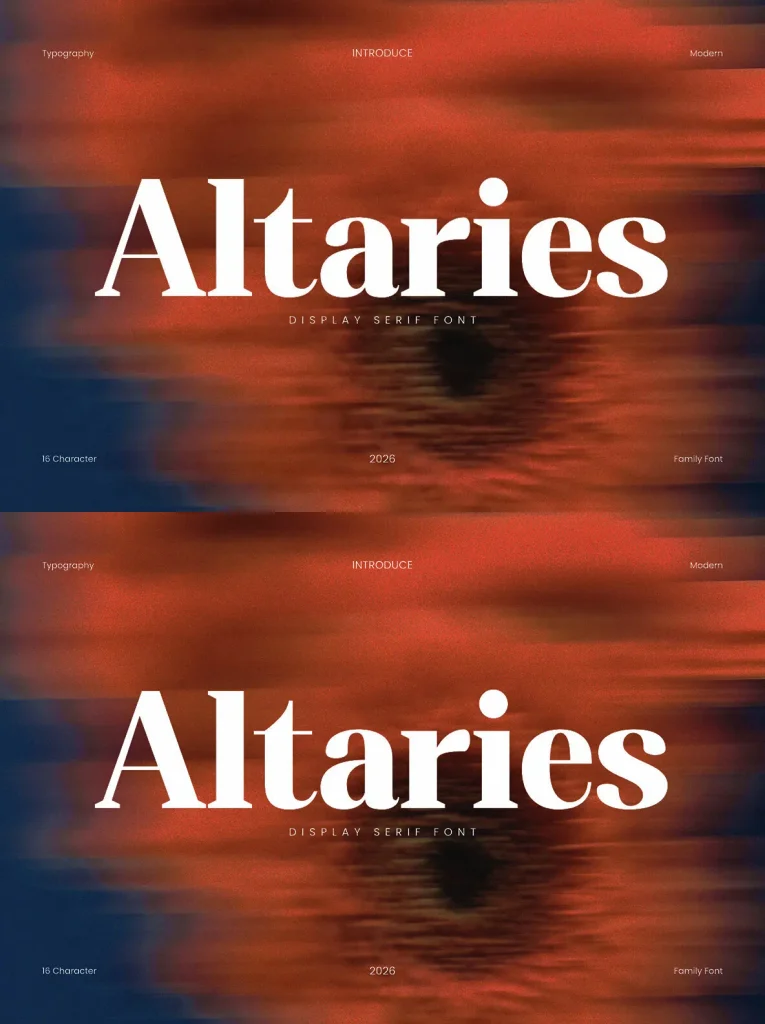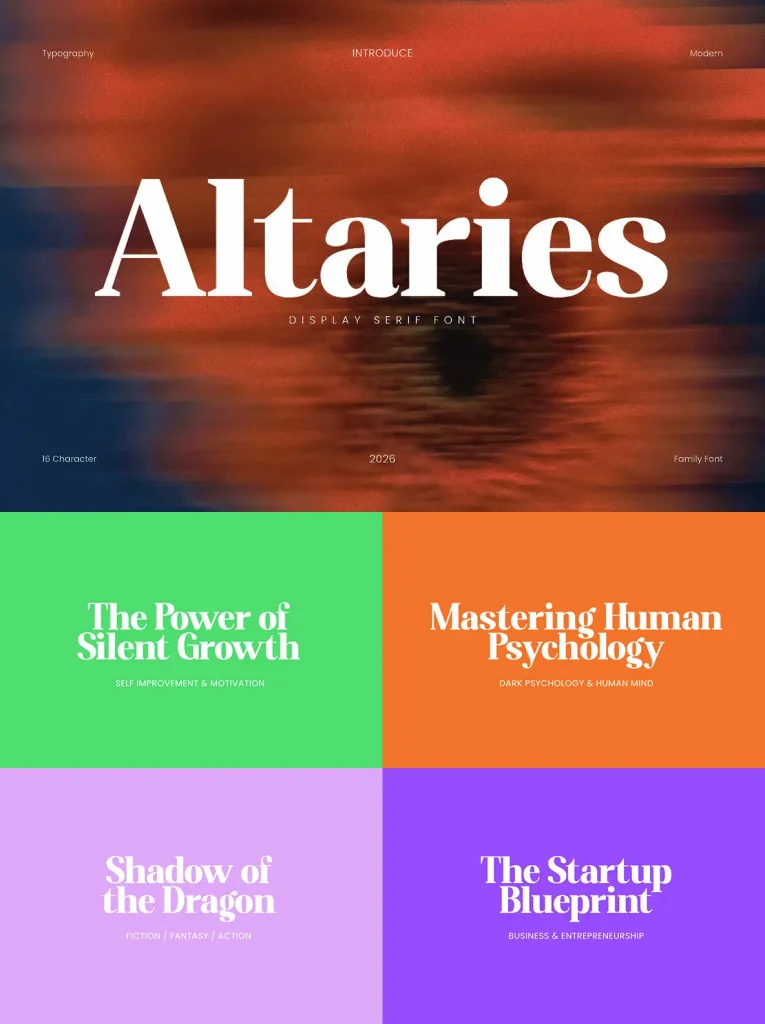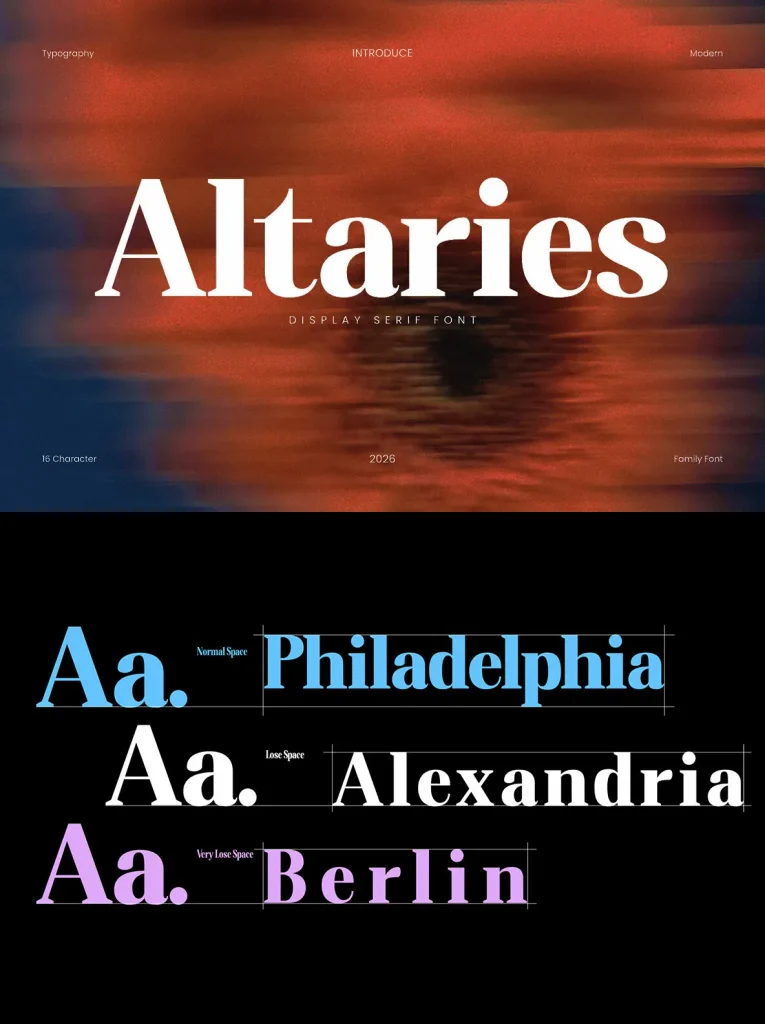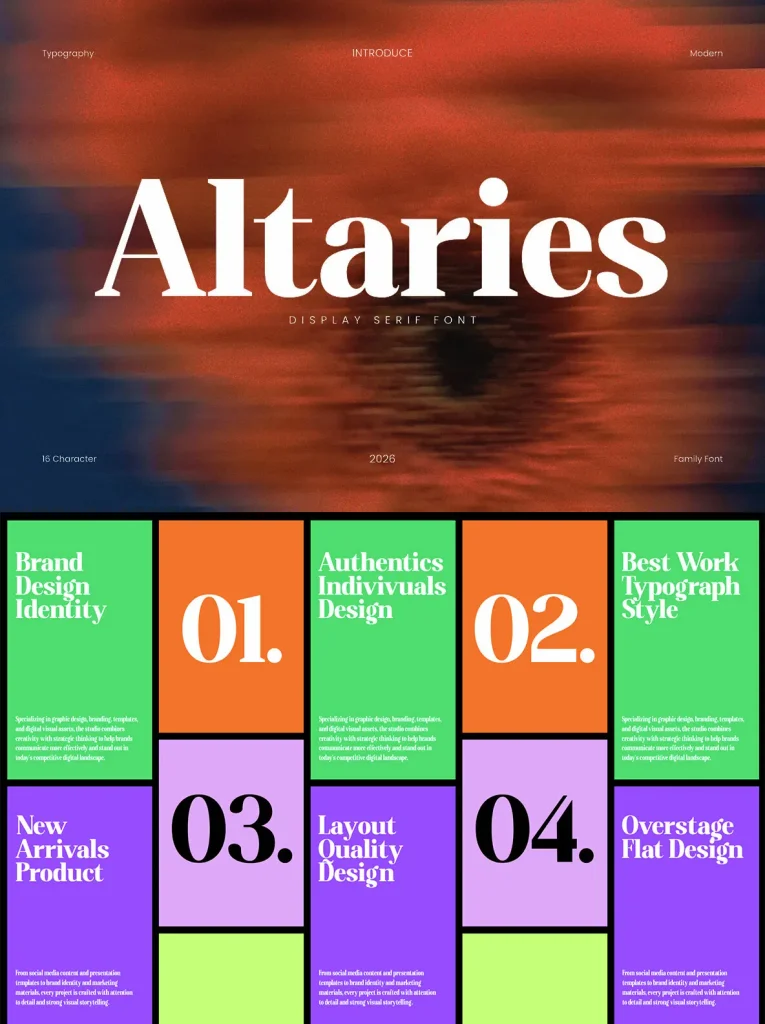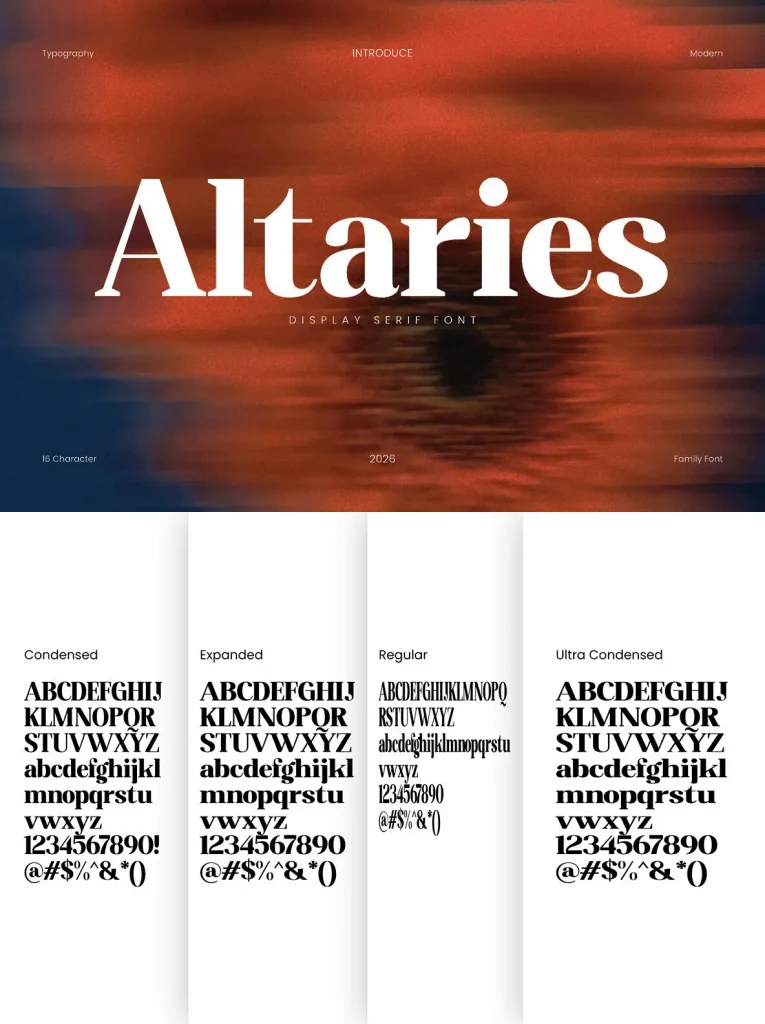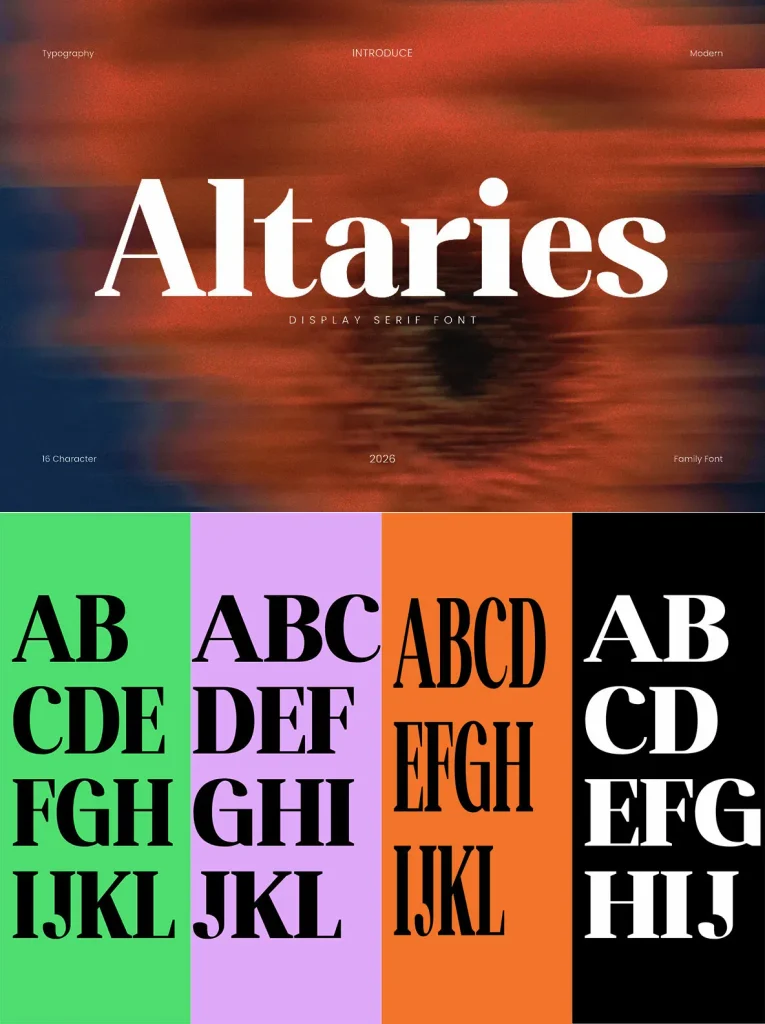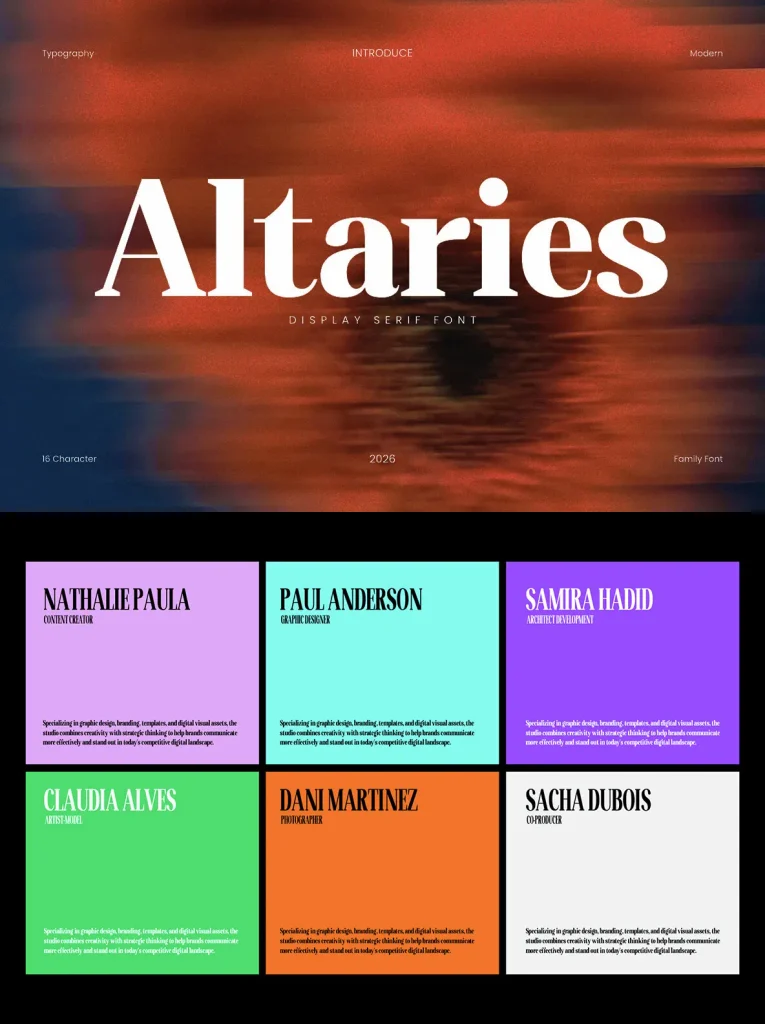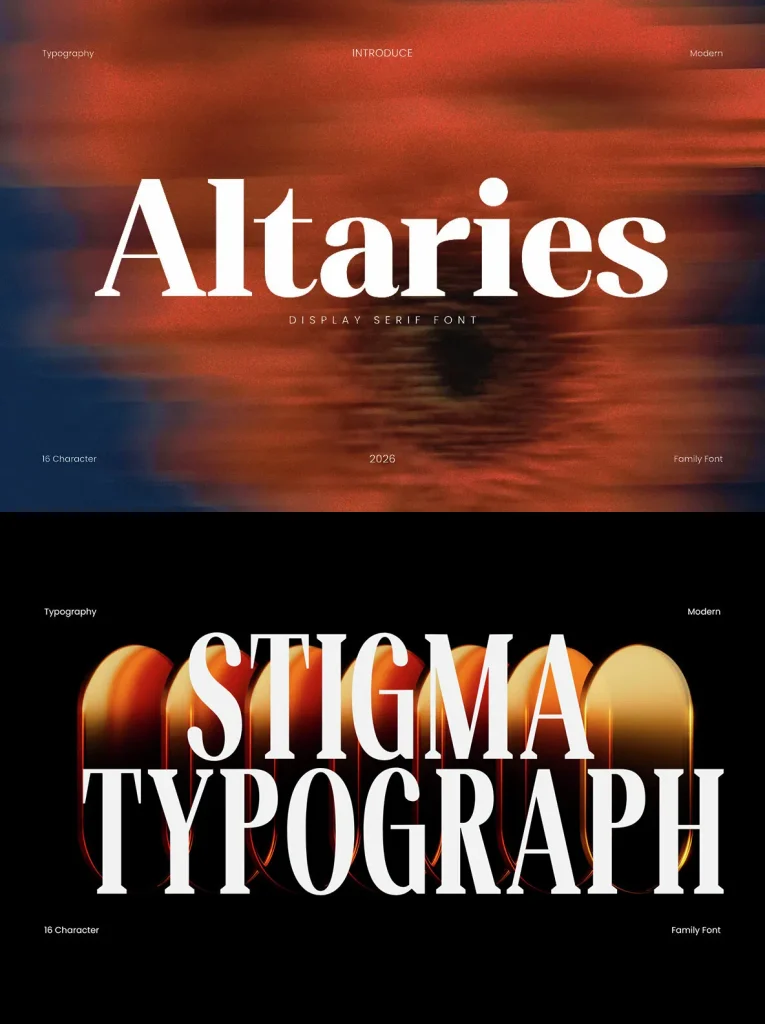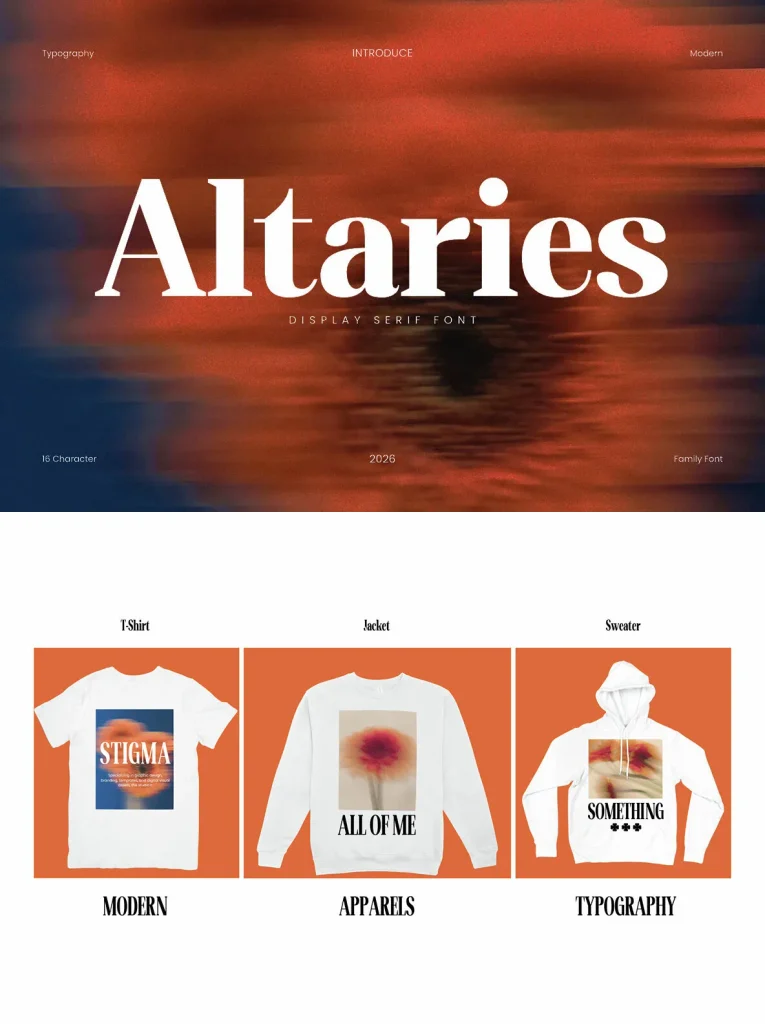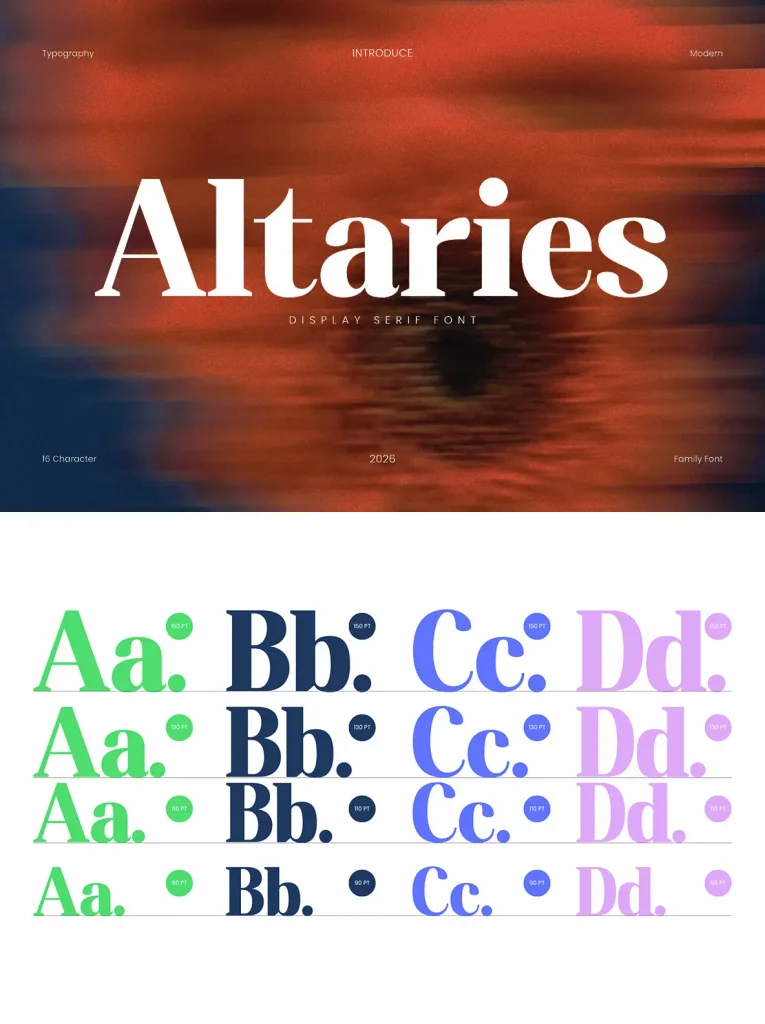
Altaries Font
Altaries — Grace With Contrast
Elegant, graceful, and classy, Altaries is a versatile serif font with a classic appeal and refined modern contrast. Its letterforms are easy to read while retaining a polished character, making the family suitable for both display typography and longer descriptive settings.
Altaries includes upright and italic styles, each with 16 weights ranging from thin to bold. Use it for logos, advertisements, packaging, book and magazine covers, titles, descriptions, and more. With multilingual support, Altaries is ready for projects that need a poised serif typeface with broad practical range. Download Altaries for your next project today.
Capital Characters
Lowercase Characters
Numbers and Ligatures
Multilingual support for multiple languages.